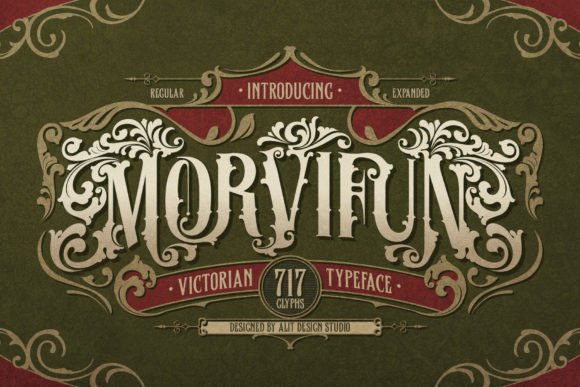
Journey into the realm of exquisite typography with Morvifun, a captivating display font that echoes the grandeur of Victorian elegance. Born from the creative vision of Alit Design, Morvifun is a visual symphony of ornamental details, seamlessly blending the classic serif style with modern design sensibilities. Prepare to be enthralled as you explore the depths of this extraordinary font.
Experience the timeless allure of Gothic aesthetics with Morvifun. This finely crafted typeface exudes an air of sophistication and refinement, lending a touch of elegance to any project it graces. From the sweeping curves of its letterforms to the intricate details of its ornamentation, Morvifun is a tribute to the artistry of the past, reimagined for the present.
Whether you seek to craft stunning invitations, elevate your branding materials, or create eye-catching signage, Morvifun is your steadfast companion. Its versatility extends from formal correspondence to book covers, bringing a touch of timeless charm to every endeavor. Its classic serif style adds a touch of sophistication and refinement to any project.
The Morvifun font family offers an extensive glyph set, empowering you with a diverse range of characters and symbols to suit your creative needs. With PUA Unicode support, you can effortlessly access a world of typographic possibilities, ensuring seamless integration into your design projects.
Unleash the boundless potential of Morvifun, a font that captures the essence of Gothic beauty, and awaken the senses of your audience. Let your designs transcend time, evoking the grace and allure of a bygone era. Embrace the enchanting world of Morvifun, where elegance and creativity intertwine to create a typographic masterpiece.
Seize the opportunity to elevate your designs to new heights with Morvifun. Allow its timeless charm to captivate your audience and transport them to a world of visual delight. Experience the magic of Morvifun today and unlock the gateway to typographic excellence.